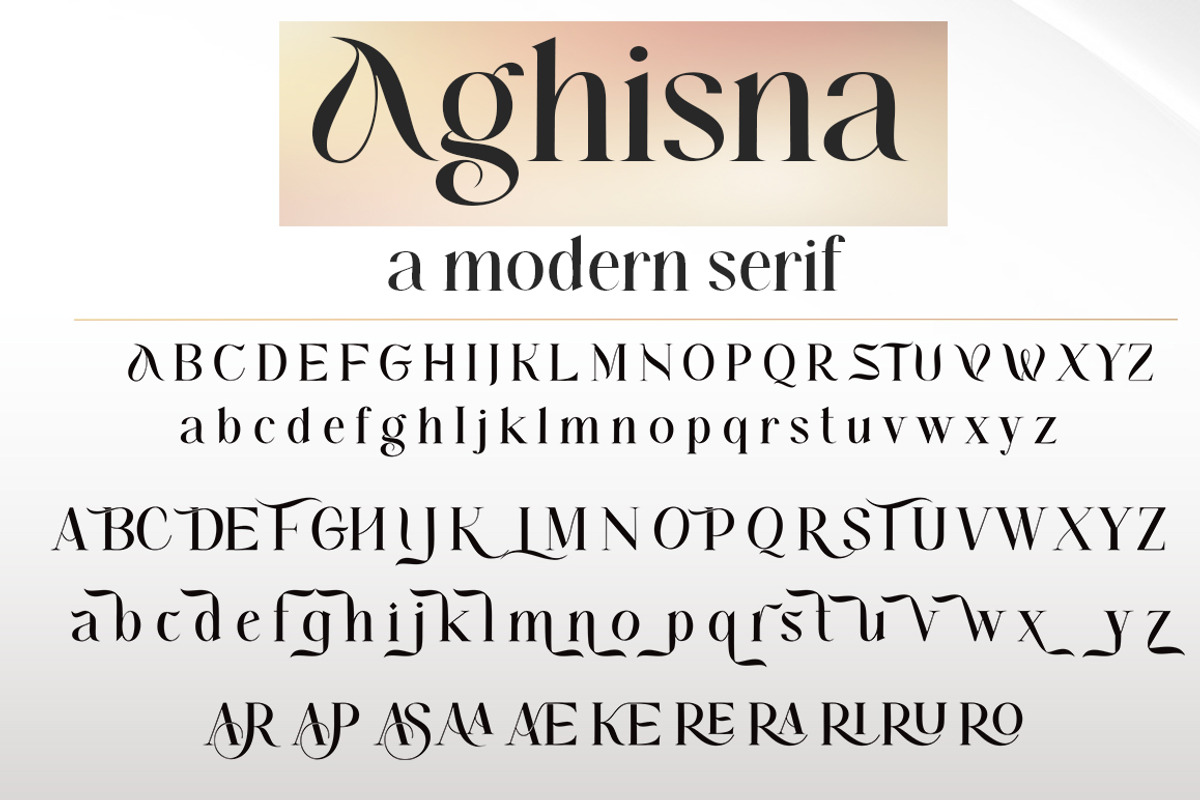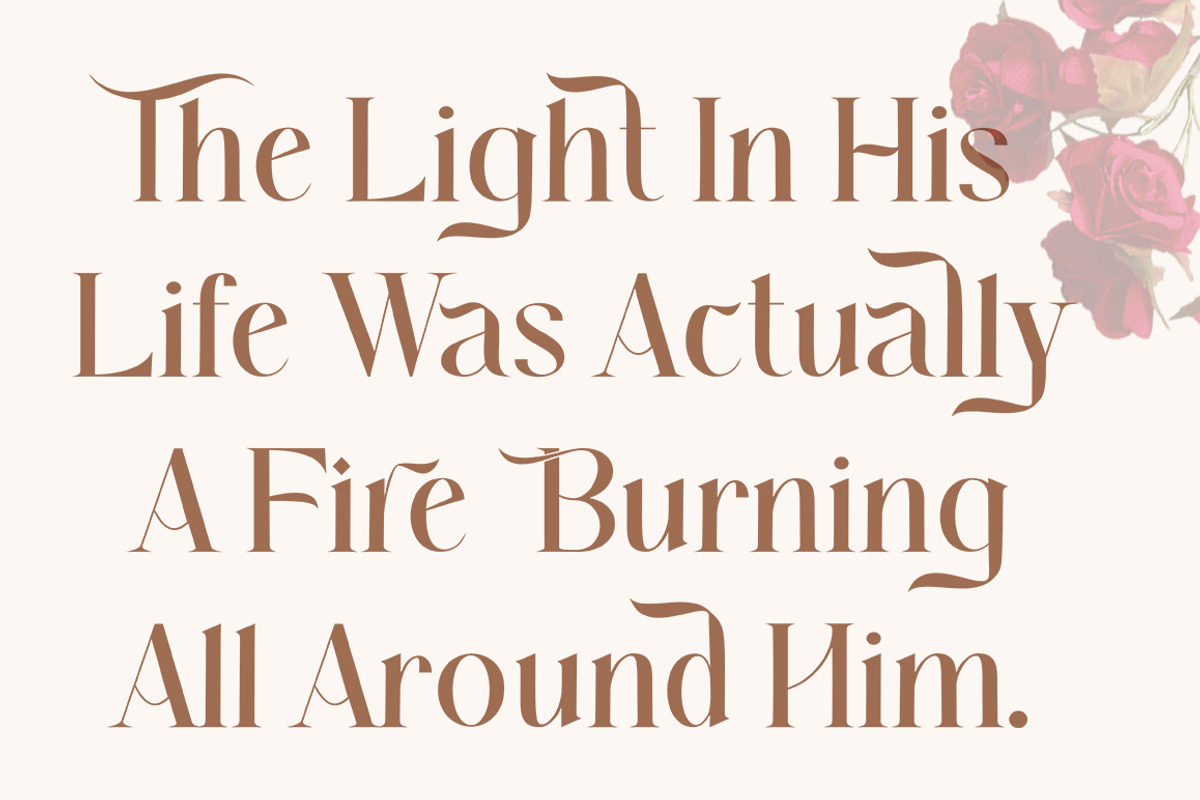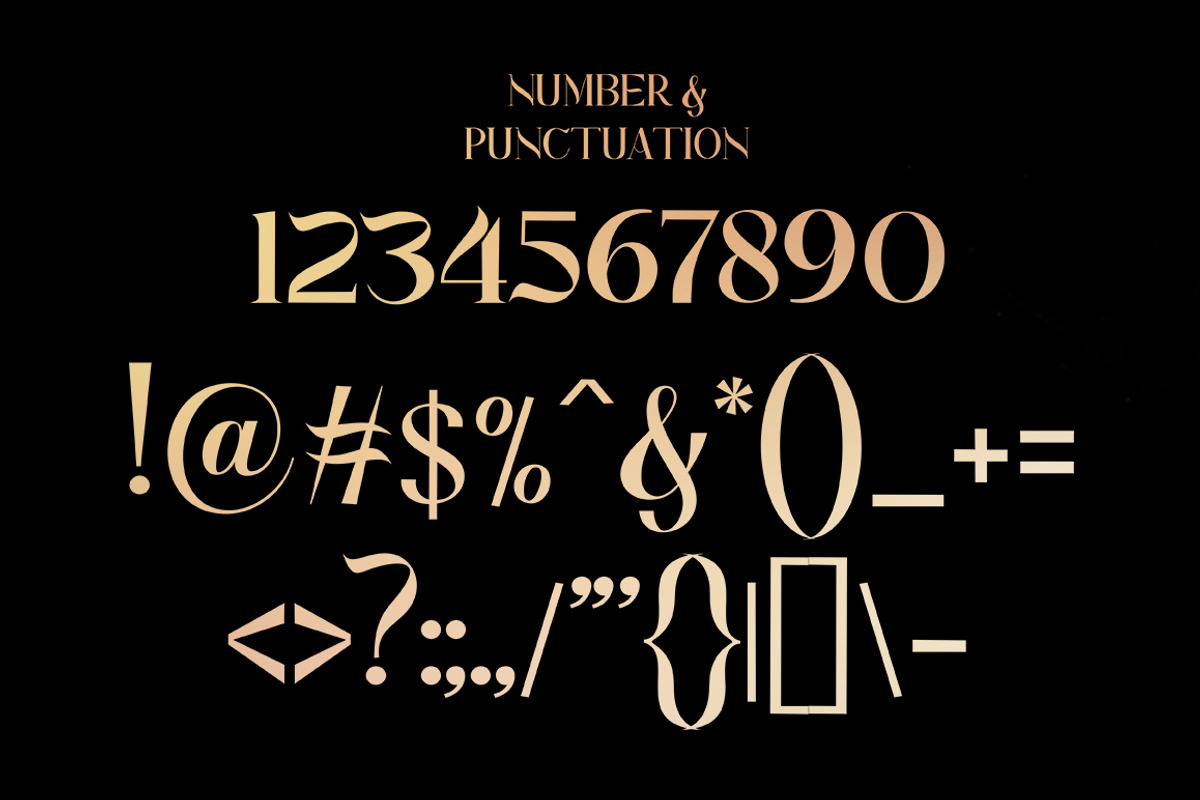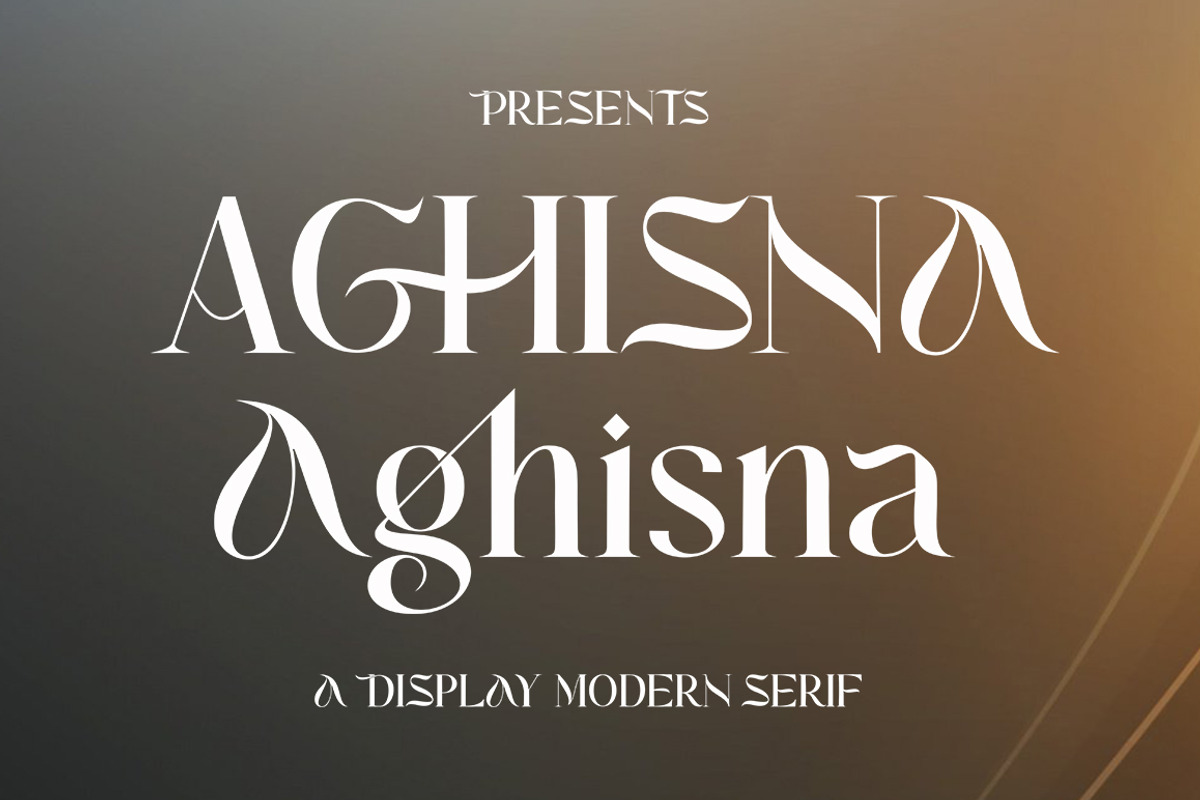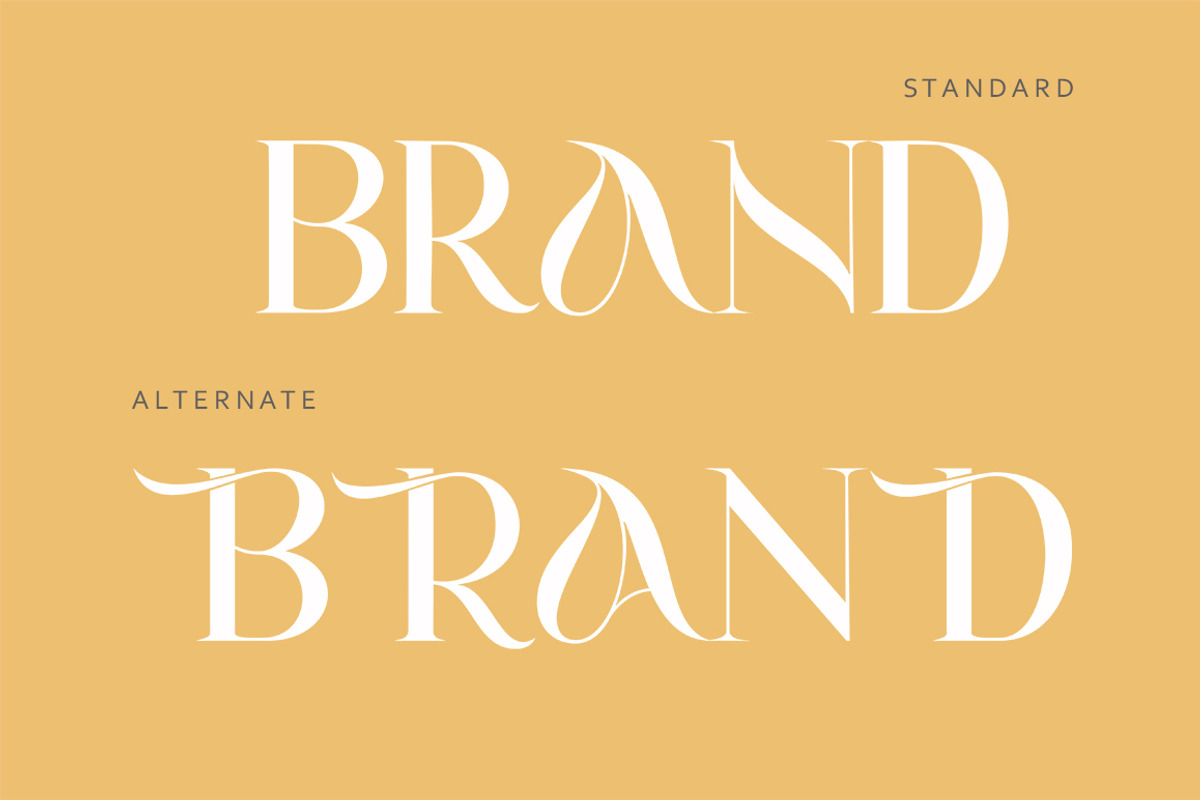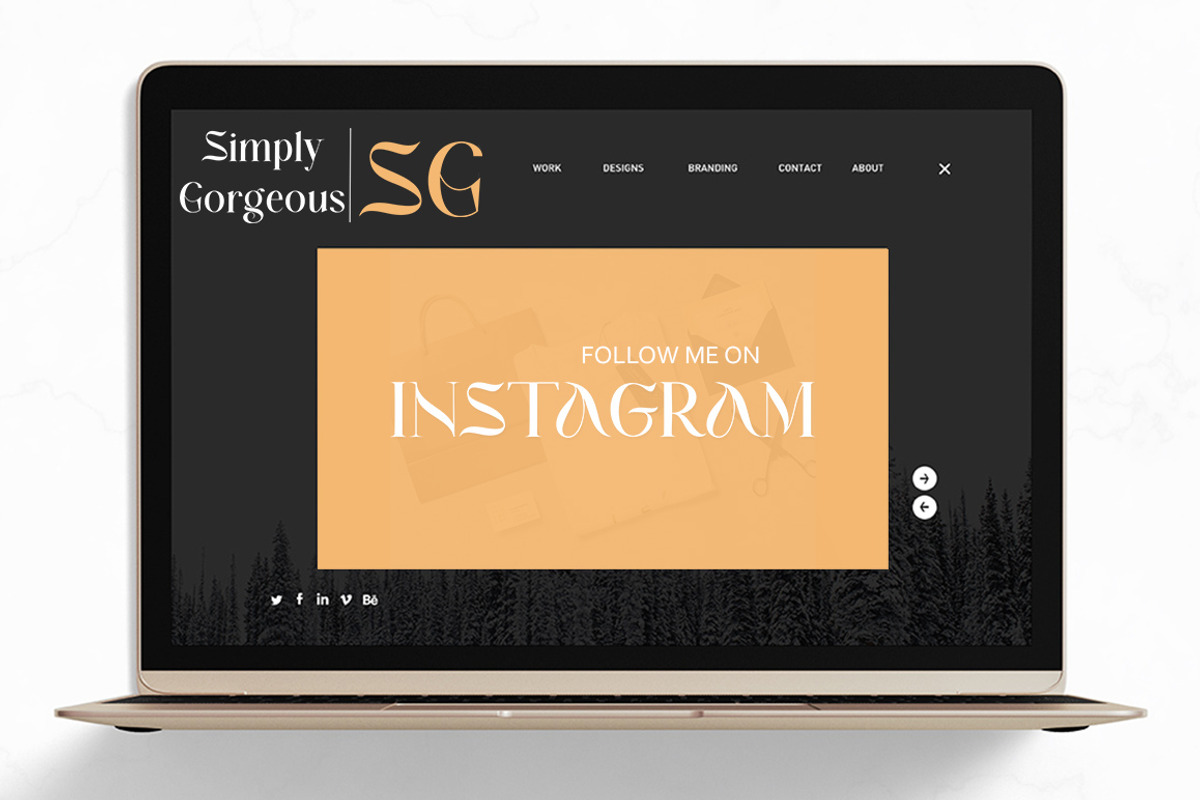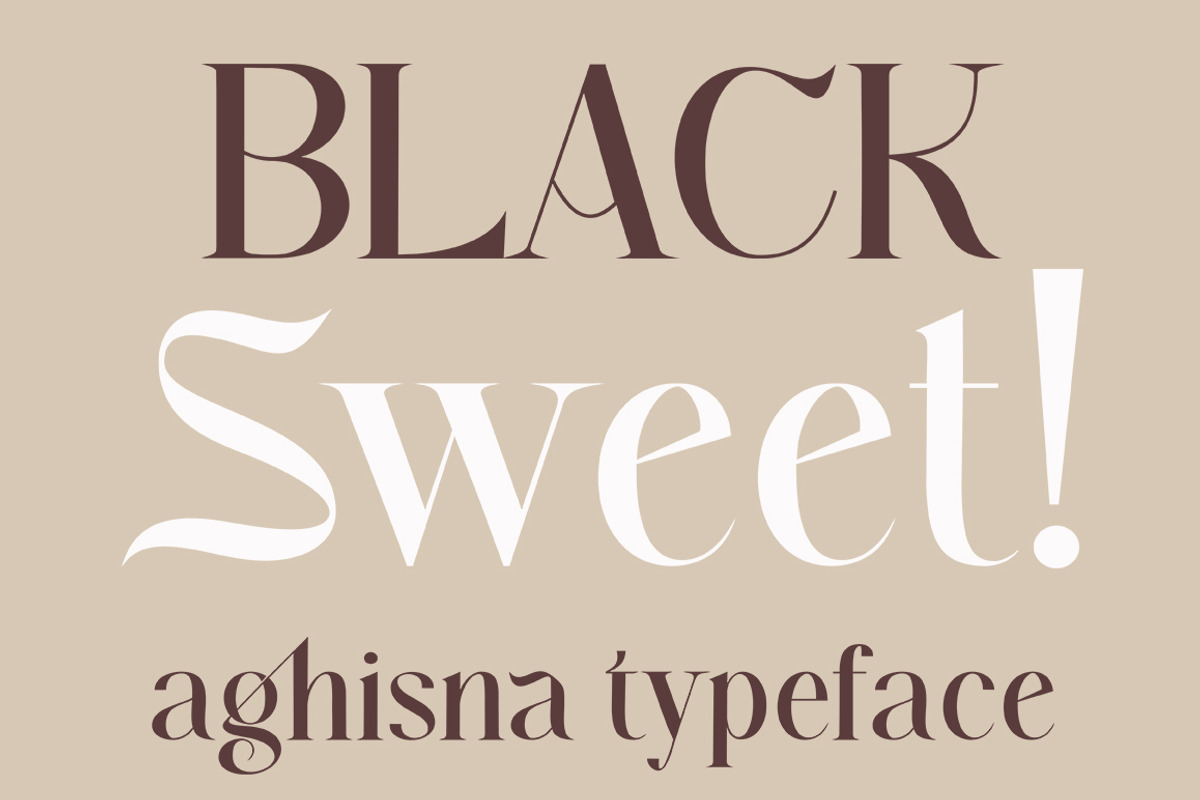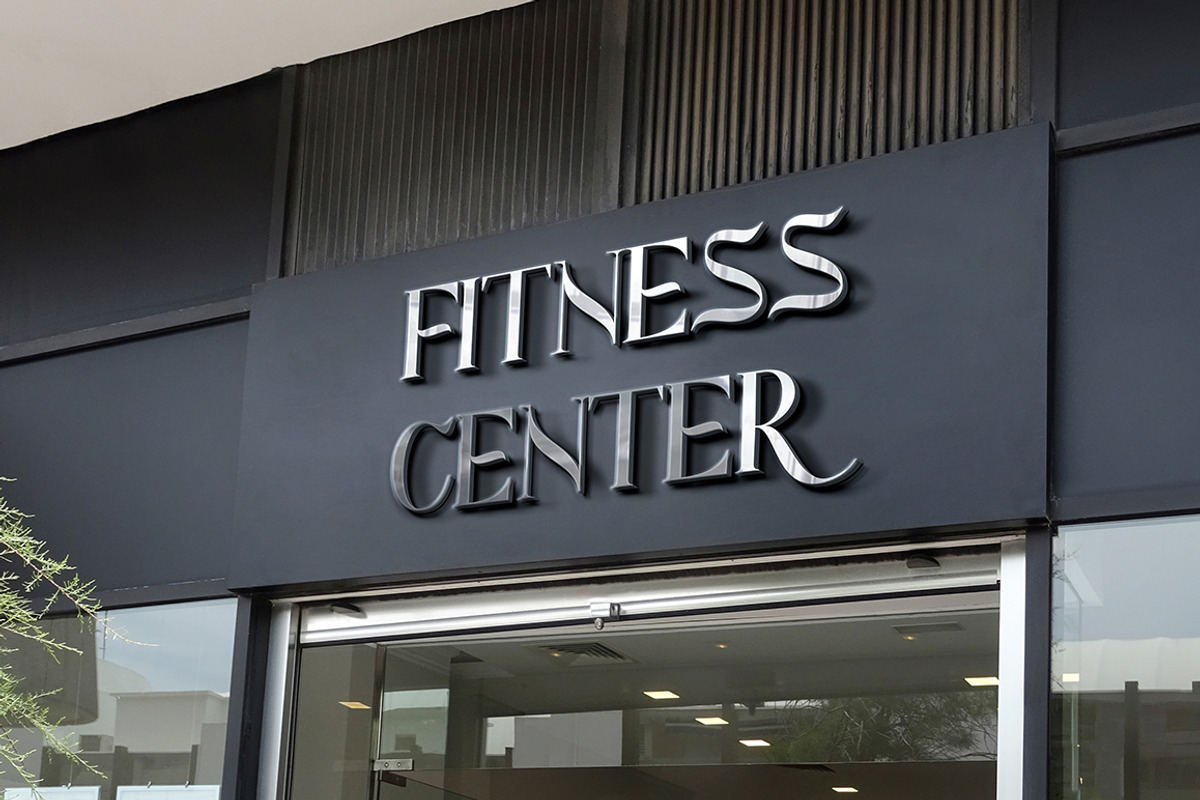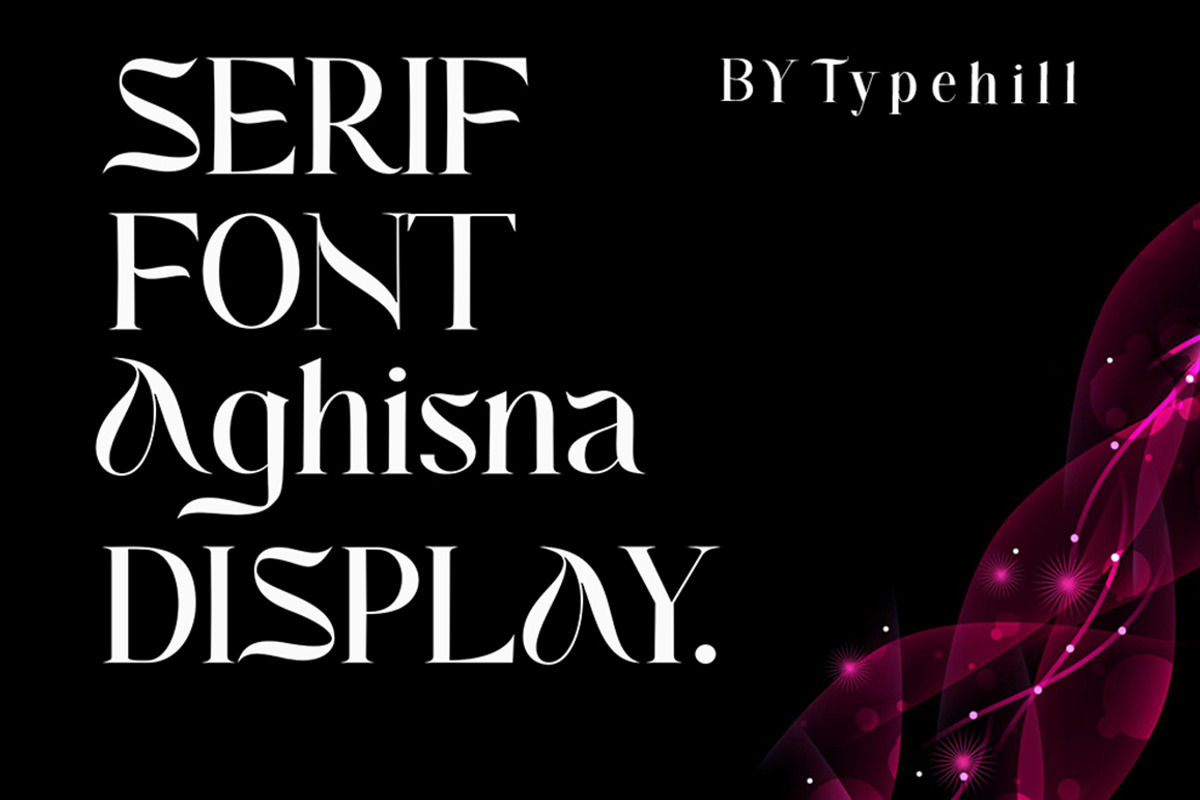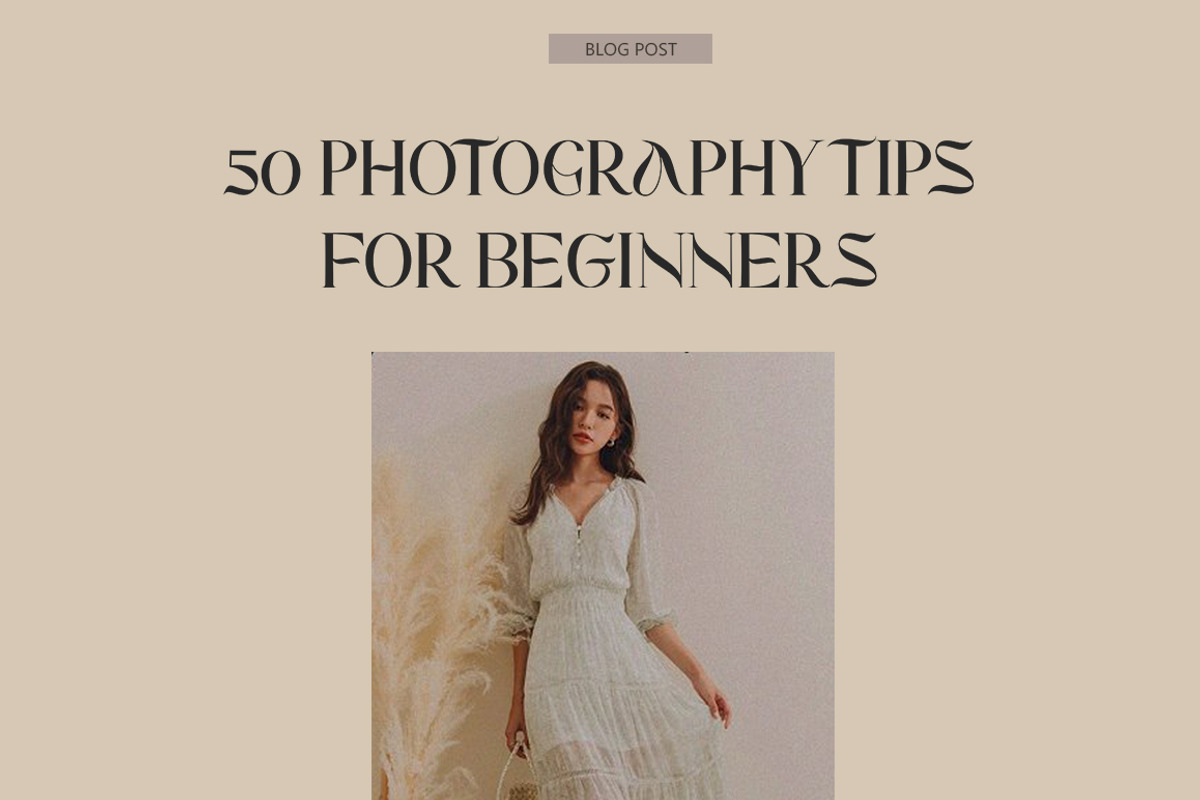
Aghisna Display
Aghisna Display attracts a typeface that is smooth, clean, unique, elegant, modern, feminine, sensual, glamorous, simple and very easy to read. Classic style is very suitable to be applied in various formal forms such as invitations, labels, menus, logos, fashion, make up, stationery, letterpress, romantic novels, magazines, books, greeting/wedding cards, packaging, labels.
Aghisna Display has alternative, Ligature and multilingual support.